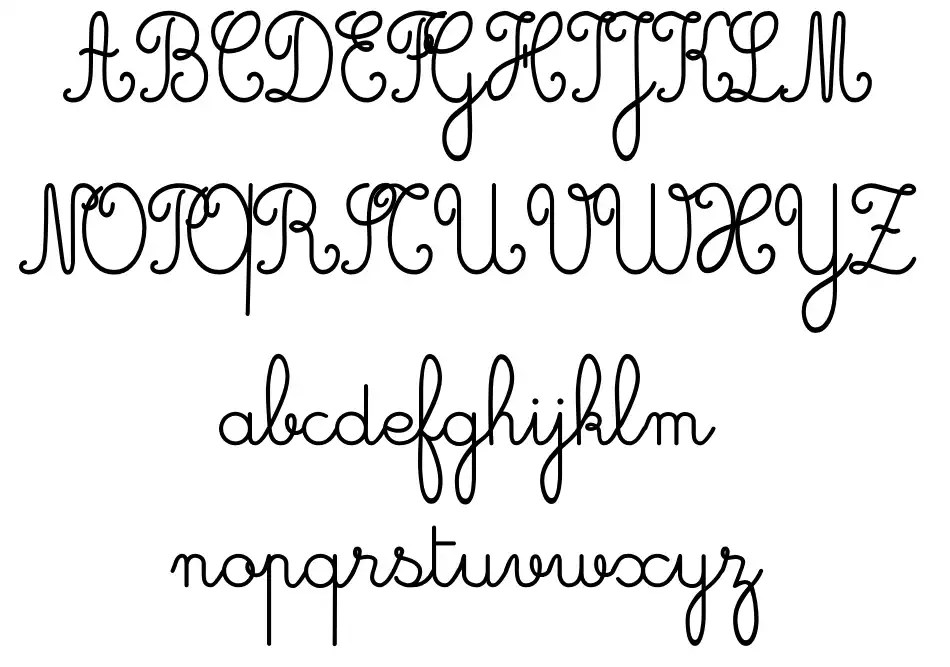
Download Standard Microsoft Word Script Fonts - Getting a little tired of the default fonts that come with microsoft word? I need a script that find all words formatted in that font and change it to the new font.
With about two dozen script and handwriting fonts available, you have lots of choices. They are organized into highly regular formal types similar to cursive writing and looser, more casual scripts. Script typefaces are based upon the varied and often fluid stroke created by handwriting, pretty much like the cursive fonts just typically more elegant.
In ms word, an entire family of fonts is usually referred to as a typeface (like times new roman).
Microsoft word and windows 10 come bundled with various different fonts. This article explains how to install fonts in windows, word for macos, microsoft word online, word for when you restart ms word, you should see your font listed in the font options. Then you open the vba editor, optionally remove some useless thing (usually too many selections or moves within the file) and you've got your script. Script typefaces are based upon the varied and often fluid stroke created by handwriting, pretty much like the cursive fonts just typically more elegant. In ms word, an entire family of fonts is usually referred to as a typeface (like times new roman). Getting a little tired of the default fonts that come with microsoft word? So if you have edwardian script or flemish script you get a very uniform appearance (see two samples below). You can add and install new fonts to inject some personality into your work. Last updated on july 5, 2019. Pick any font, and apply the same way. Microsoft word is at its core a word processing application. How to add fonts to microsoft word. Licensed for personal and commercial use.
This article explains how to install fonts in windows, word for macos, microsoft word online, word for when you restart ms word, you should see your font listed in the font options. They are organized into highly regular formal types similar to cursive writing and looser, more casual scripts. Typefaces only shipped with microsoft office or other microsoft applications are not included.
If this distinction makes sense to you, let's now see how we can explore the list of font styles in ms word as well as how to add new font types or typeface. With about two dozen script and handwriting fonts available, you have lots of choices.
Cursive fonts (also known as script, calligraphy, or handwritten fonts) are readily available online for download.
This is a list of typefaces shipped with windows 3.1x through windows 10. In ms word, an entire family of fonts is usually referred to as a typeface (like times new roman).
Microsoft word and windows 10 come bundled with various different fonts. This article explains how to install fonts in windows, word for macos, microsoft word online, word for when you restart ms word, you should see your font listed in the font options.
Microsoft word and windows 10 come bundled with various different fonts. Inside word, you can record a macro by doing it yourself.
Alright, so you have your document written out but you don't like the way it looks. How to change the font of an entire document in microsoft word.
How to add fonts to microsoft word. Alright, so you have your document written out but you don't like the way it looks.
You can add and install new fonts to inject some personality into your work. Microsoft word and windows 10 come bundled with various different fonts.
If this distinction makes sense to you, let's now see how we can explore the list of font styles in ms word as well as how to add new font types or typeface. People also prefer using font style or font type.
They are organized into highly regular formal types similar to cursive writing and looser, more casual scripts. Inside word, you can record a macro by doing it yourself.